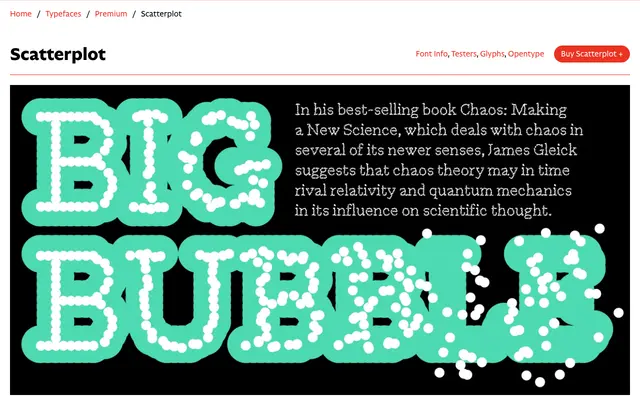
Scatterplot
A variable dot-matrix slab serif with a dual axis controlling weight and randomness, built on a strict modular grid with no optical corrections.
Designed by Giulio Galli, Scatterplot constructs each letterform from dots arranged on a geometric grid, with the Weight axis increasing dot diameter without any optical compensation and the Random axis scattering dots progressively until legibility breaks down entirely. Static fonts offer four weights crossed with four levels of randomness, from Mild to UltraWild, giving 20 preset styles alongside the variable font. Lighter settings produce the look of an old matrix printer at text sizes, while heavier and wilder combinations suit posters, titles and animated work.
A slab serif constructed entirely from dots on a modular grid, with a variable Random axis that progressively dissolves legibility; the dot-matrix construction and brutalist weight axis place it firmly in the display category.